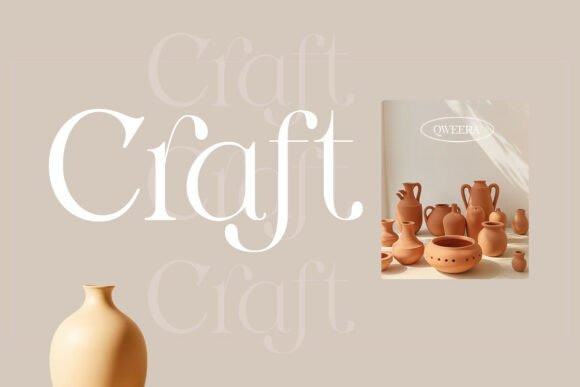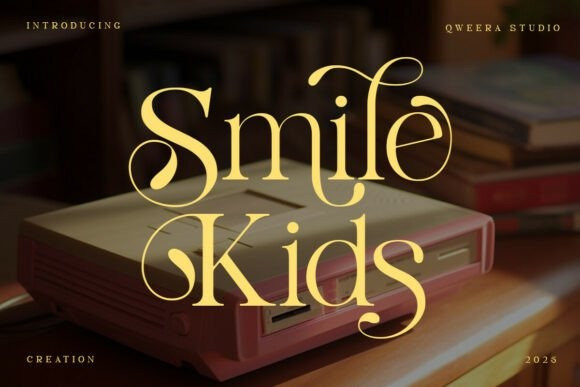
Smile Kids Font
Smile Kids Font – Modern Elegant Luxury Serif Font with Playful Sophistication. With its clean lines, stylish alternates, and ligatures, Smile Kids is the perfect choice for high-end branding, editorial design, and luxury packaging that aims to convey both professionalism and a touch of whimsy. Whether you’re crafting a logo, designing a magazine layout, or creating standout packaging, this font ensures your work radiates timeless elegance with a playful twist.
Smile Kids stands out with its unique blend of luxury and approachability. Its stylish alternates and ligatures add a touch of creativity and individuality, making it ideal for projects that demand both sophistication and a sense of fun. From corporate branding to editorial masterpieces, Smile Kids ensures your designs are both polished and engaging.